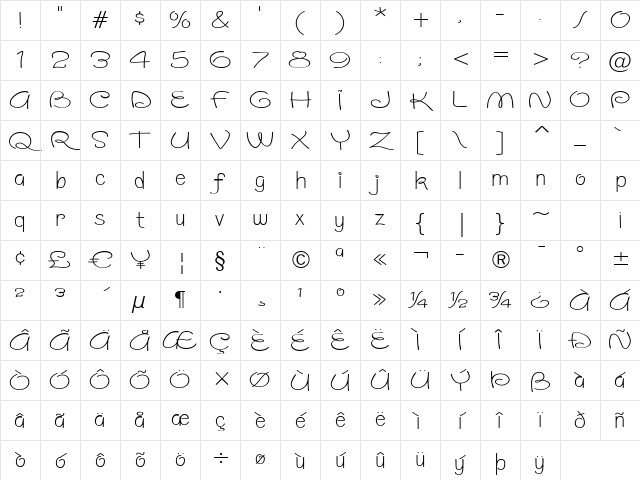
Morning Limerick BTN Exp Lt Regular
Design Context for Morning Limerick BTN Exp Lt
Morning Limerick BTN Exp Lt is a composed and adaptable typeface that performs quietly and consistently across a wide range of design contexts. Its slender proportions lend an understated elegance to any composition.